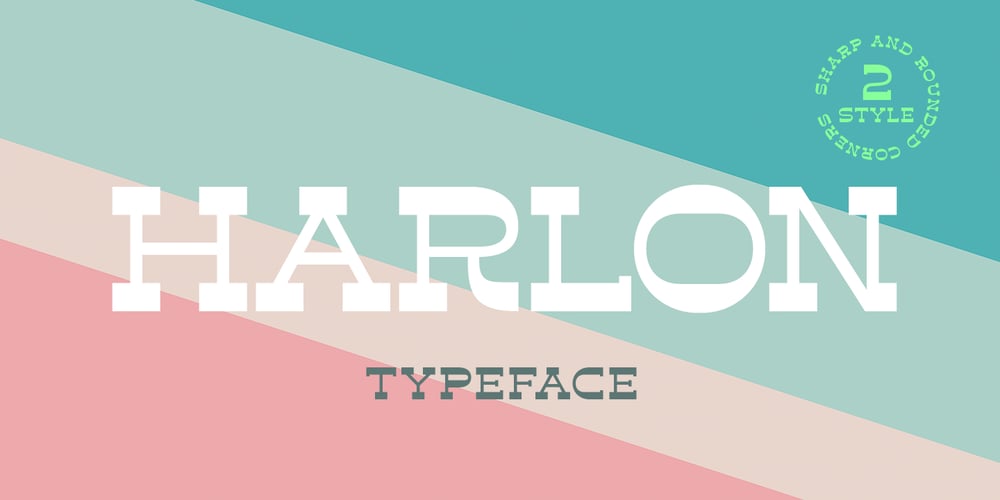
Harlon Font Family was designed by Pavel Larin and published by Larin Type Co. Harlon contains 2 styles and family package options. Harlon This is a display font in two headings, sharp corner and rounded corners. This font is perfect for titles, book covers, logos, T-shirt printing, packaging and much more, and also this font includes stylistic alternates.This font is easy to use and has OpenType features.